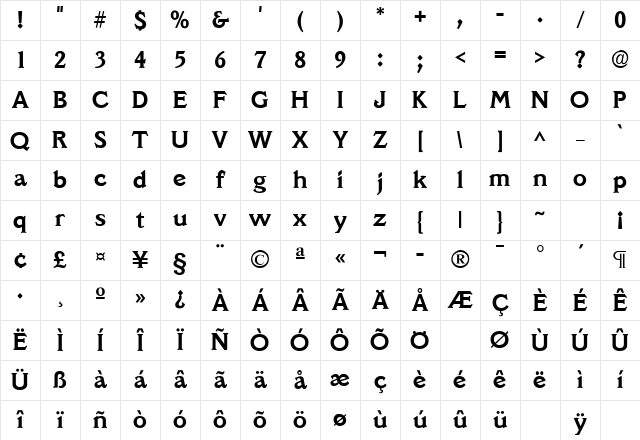
Complete SantaCruz SF Bold glyph index. Displaying only characters natively supported by SantaCruz SF Bold font.
SantaCruz SF is a composed and adaptable typeface that performs quietly and consistently across a wide range of design contexts. Its bold stroke weight gives it real presence on the page.